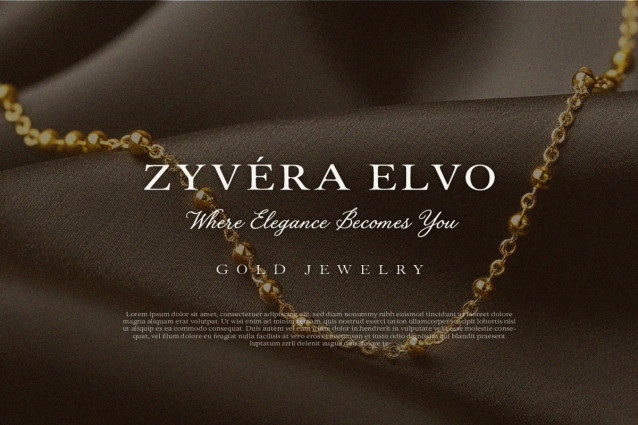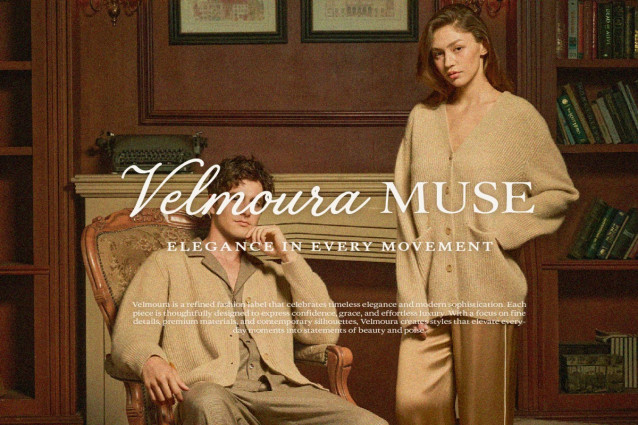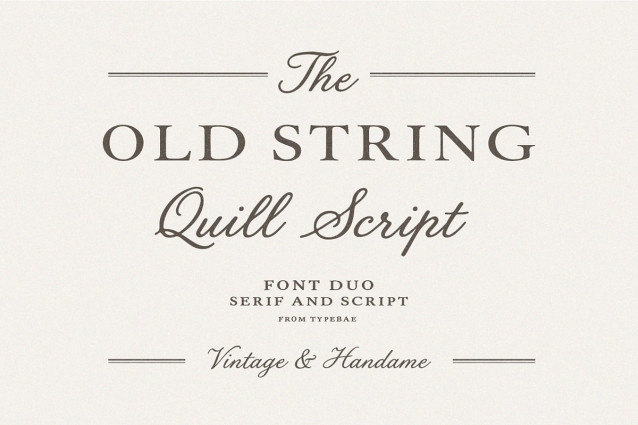
Old String Serif Font
Old String Serif Font is a timeless font duo combining an elegant vintage serif with a graceful quill style script. Designed to create classic and refined typography, it is perfect for logos, wedding designs, branding, packaging, editorial layouts, and sophisticated invitations. The balanced contrast between serif structure and handwritten flow brings warmth, heritage, and artistic character to every design.